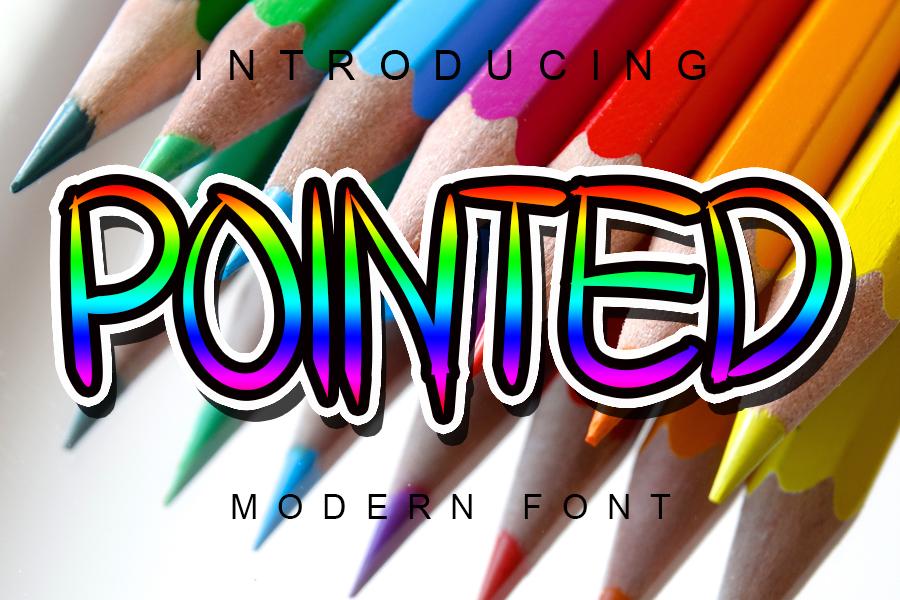
Pointed is a modern and flowing handwritten font. Designed to become a top choice, this font has the potential to bring each of your creative ideas to the highest level!